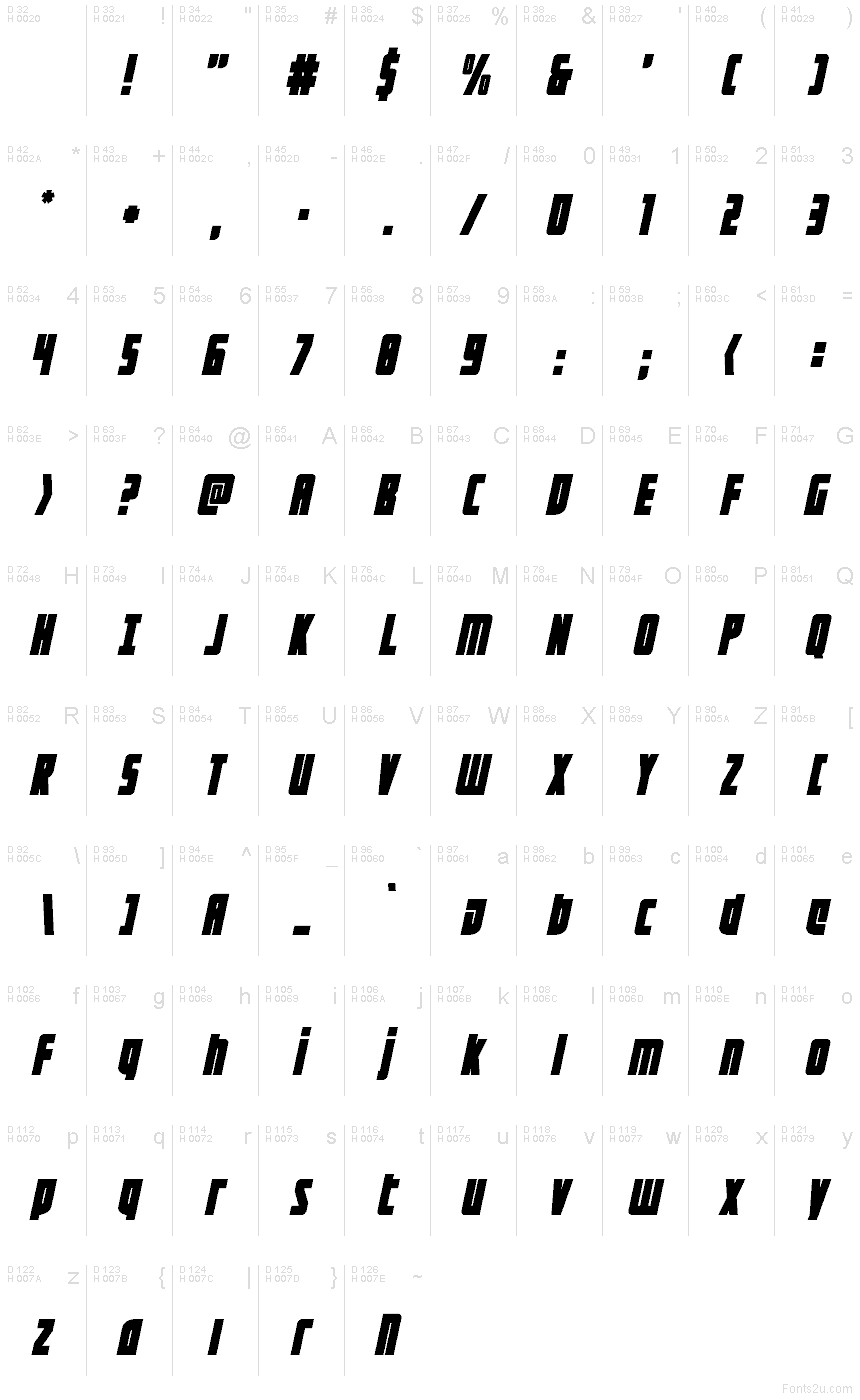
Impact Wrench Spaced Semi-Ital
Impact Wrench Spaced Semi-Italic font by Iconian Fonts is a futuristic condensed display font with an assertive geometric presence. Its bold strokes and modern style capture a technological feel that’s suitable for fast-paced designs. The free artistic typeface also features industrial, machine-like influences which can be observed in its blocky, hard lines.
Consider this interesting tool for public signs, posters, headlines, headers and subheaders, websites and apps interfaces, magazines tickers plus news tickers. Other use ideas in titles of movies and books as well as video games and TV channels would fit the visual personality of this font .